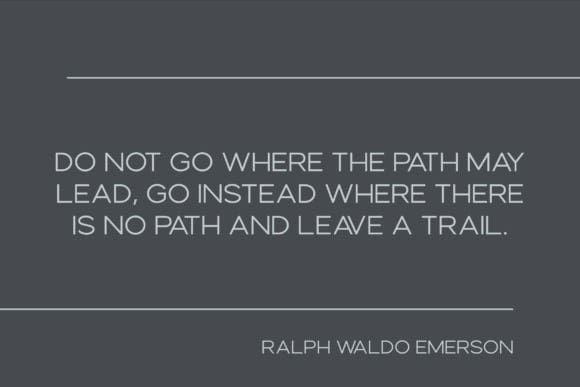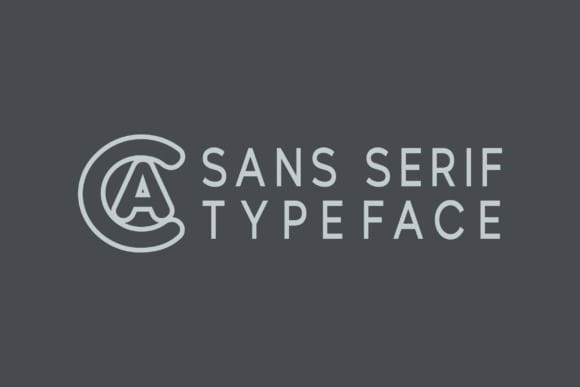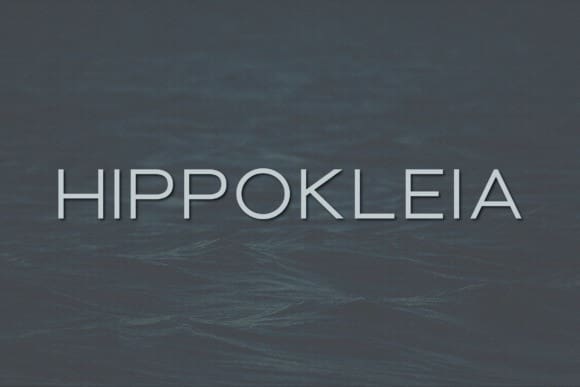
Hippokleia Font
Hippokleia Font, an elegantly modern sans serif font type. Embodying sophistication and versatility, it features uppercase letters, digits 0-9, and an assortment of punctuation marks and symbols. With infinite flexibility, Hippokleia is the ideal choice for crafting striking logos, bespoke wedding invitations, expressive quotes, vibrant advertisements, captivating print media and engaging magazine content. Immerse yourself in the world of design with Hippokleia and let your creativity flow!